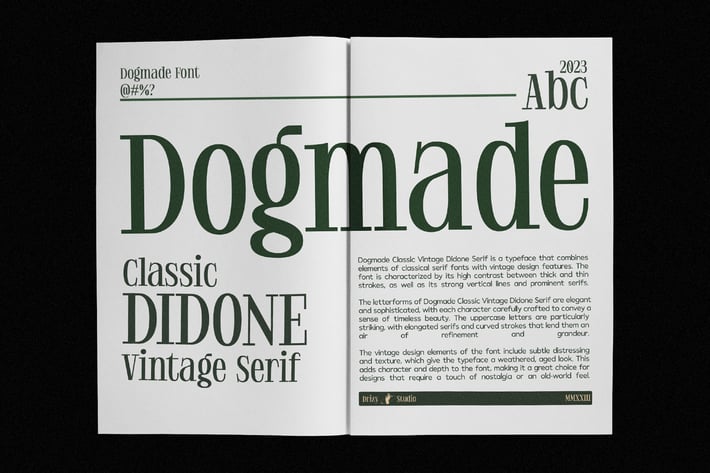
Dogmade - Vintage Didone Font
Dogmade is a Classic Vintage Didone Serif Font from Drizy studio. Offering all the basic styles you will need for any oldie and vintage theme and projects.
Dogmade Features:
Uppercase & Lower Case
Multilinguals
Alternates